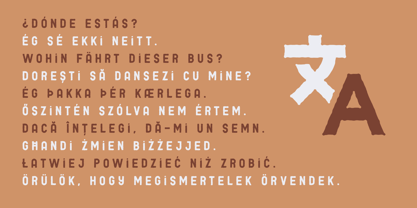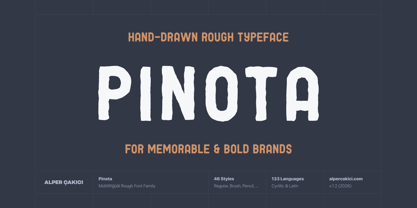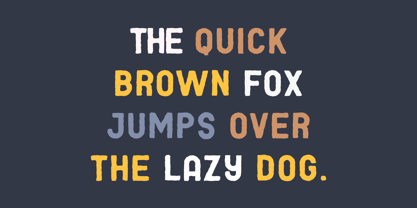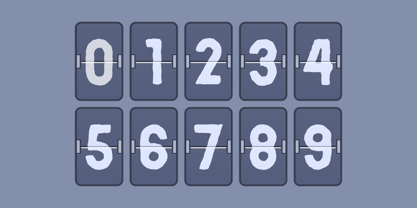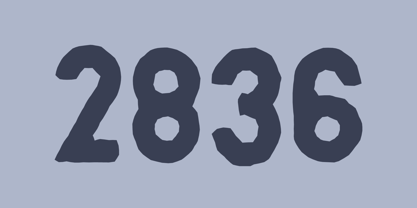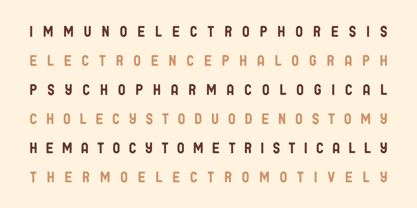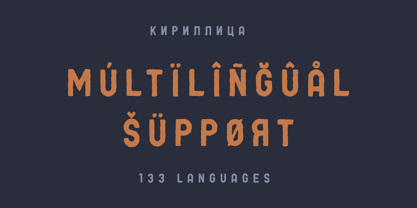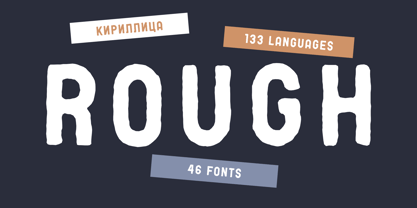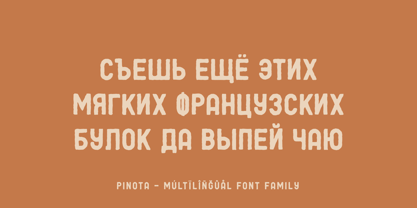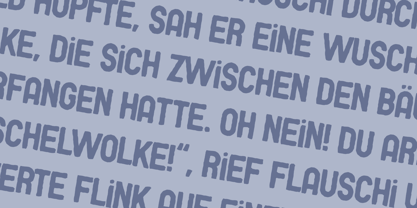
Pinota
by AlperCakici
The Pinota Font Family was designed by Alper Çakıcı and published by AlperCakici. Pinota contains 46 styles and family package options. More about this family
Pinota Rough Sans Serif Family Pinota is a highly expressive rough sans serif typeface designed for creators who want texture, personality, and versatility in one powerful system. Built with a handcrafted spirit and a contemporary structure, Pinota balances clarity with organic imperfection — making it ideal for branding, packaging, editorial design, posters, merchandise, and digital graphics. With an extensive range of styles, Pinota moves effortlessly between clean and experimental. From crisp Regular and Italic cuts to textured Brush, Pencil, Noise, Rough, and Eroded variants, each style brings a distinct surface character while maintaining a unified skeleton. The Circular, Rounded, and Angular constructions expand its tonal flexibility — allowing designers to shift from friendly and soft to sharp and assertive without changing type families. Whether you need subtle warmth or bold distressed impact, Pinota delivers a cohesive typographic voice across 40+ carefully crafted styles. Key Features Large Latin-based language support (133 languages) Rough, Brush, Pencil, Noise & Eroded textures Circular, Rounded & Angular constructions Outline and Italic counterparts Perfect for branding, posters, packaging, apparel, and social media Pinota is not just a typeface — it’s a complete rough sans serif system designed to give your typography depth, character, and creative freedom.
Designers: Alper Çakıcı
Foundry: AlperCakici